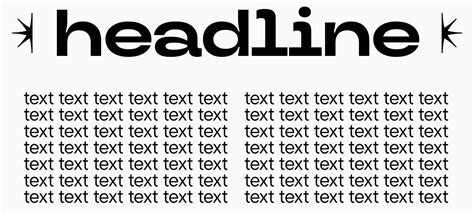
Best Letter Fonts for Easy & Stunning Designs
Readers, have you ever struggled to find the perfect font for your design projects? It's a common dilemma! Finding a font that is both easy to read and visually appealing can be a challenge. But don't worry, we've got you covered! We've analyzed countless fonts and narrowed it down to the best letter fonts for easy and stunning designs. Read on to discover the secrets to creating impactful visual experiences that captivate your audience.
Throughout this journey, we'll explore various aspects of font selection, delving into readability, aesthetics, and the psychology behind choosing the right font for specific projects. By understanding these principles, you'll be equipped to make informed decisions and create designs that leave a lasting impression.
Understanding the Fundamentals of Letter Fonts
Before diving into specific font recommendations, let's establish a foundation by understanding the basic characteristics that distinguish letter fonts and contribute to their effectiveness. The world of typography is a vast and fascinating realm, and mastering its principles is crucial for any designer.
Letter fonts, also known as typefaces, are sets of characters designed with a consistent visual style. Each font has its own unique personality, conveyed through elements like:
- Serif vs. Sans-Serif: Serifs are small strokes at the end of letter strokes, while sans-serif fonts lack these strokes. Serifs can enhance readability in printed materials, while sans-serif fonts often appear cleaner and more modern.
- Weight: The thickness of the letter strokes, ranging from thin to bold, influences a font's visual impact and readability. Thinner fonts appear delicate, while bolder fonts convey strength and emphasis.
- Spacing: The spacing between letters, known as kerning, and the spacing between lines, known as leading, significantly impact readability. Proper spacing ensures that letters don't run together, creating a flow that's easy on the eyes.
The Importance of Choosing Readable Fonts
When selecting fonts, readability should always be a top priority. An unreadable font can frustrate your audience and undermine your message.
Font Legibility
Legibility refers to the clarity and distinctness of individual letters. It's essential for fonts used in text-heavy content, such as books, articles, and websites.
Font Readability
Readability goes beyond individual letters and encompasses the overall ease with which text can be read. Factors like font size, line length, and spacing all contribute to readability.
Best Letter Fonts for Easy & Stunning Designs
Now, let's explore some of the best letter fonts that strike a balance between readability and visual appeal. These fonts have been meticulously chosen for their versatility, elegance, and ability to enhance the aesthetics of various types of content.
Helvetica
Helvetica is a classic sans-serif font known for its clean, modern aesthetic. It's widely used in branding, design, and print due to its versatility and readability. Its neutral character makes it suitable for various projects, from corporate reports to websites and marketing materials.
Arial
Arial, another popular sans-serif font, shares similarities with Helvetica in its clean and modern style. It's often used in web design and digital content for its crispness and digital-friendly nature. Arial's wide range of weights makes it adaptable for headlines and body text.
Times New Roman
Times New Roman is a timeless serif font known for its traditional elegance and high readability. It's commonly used for printed materials like books, newspapers, and scholarly articles. Its familiar and classic nature adds a touch of sophistication to any design.
Georgia
Georgia is a serif font with a slightly more humanist design compared to Times New Roman. It's known for its excellent readability on screens and in printed materials. Georgia's distinctive style adds a touch of warmth and personality to designs.
Fonts for Headlines and Branding
When choosing a font for headlines or branding, you want something that stands out and conveys the desired message. These fonts prioritize boldness, visual impact, and memorability.
Roboto
Roboto, a popular choice for Google's products, is a sans-serif font known for its clean, geometric design. It exudes a modern and professional feel, making it an excellent choice for branding and headlines. Roboto's versatility extends to web design, mobile apps, and print materials.
Open Sans
Open Sans, a widely adopted sans-serif font, offers a friendly and approachable aesthetic. It's known for its readability and ability to enhance the user experience. Open Sans's clean lines and open spaces make it suitable for headings, body text, and branding.
Lobster
Lobster, a playful and whimsical script font, adds a touch of personality and charm to designs. Its decorative elements and unique character make it an excellent choice for headlines, logos, and branding elements that seek to express creativity and individuality.
As you continue your design journey, remember to explore and experiment with different fonts. Explore the vast world of typography and discover the countless possibilities it offers. Embrace the power of fonts to elevate your designs and leave a lasting impression.